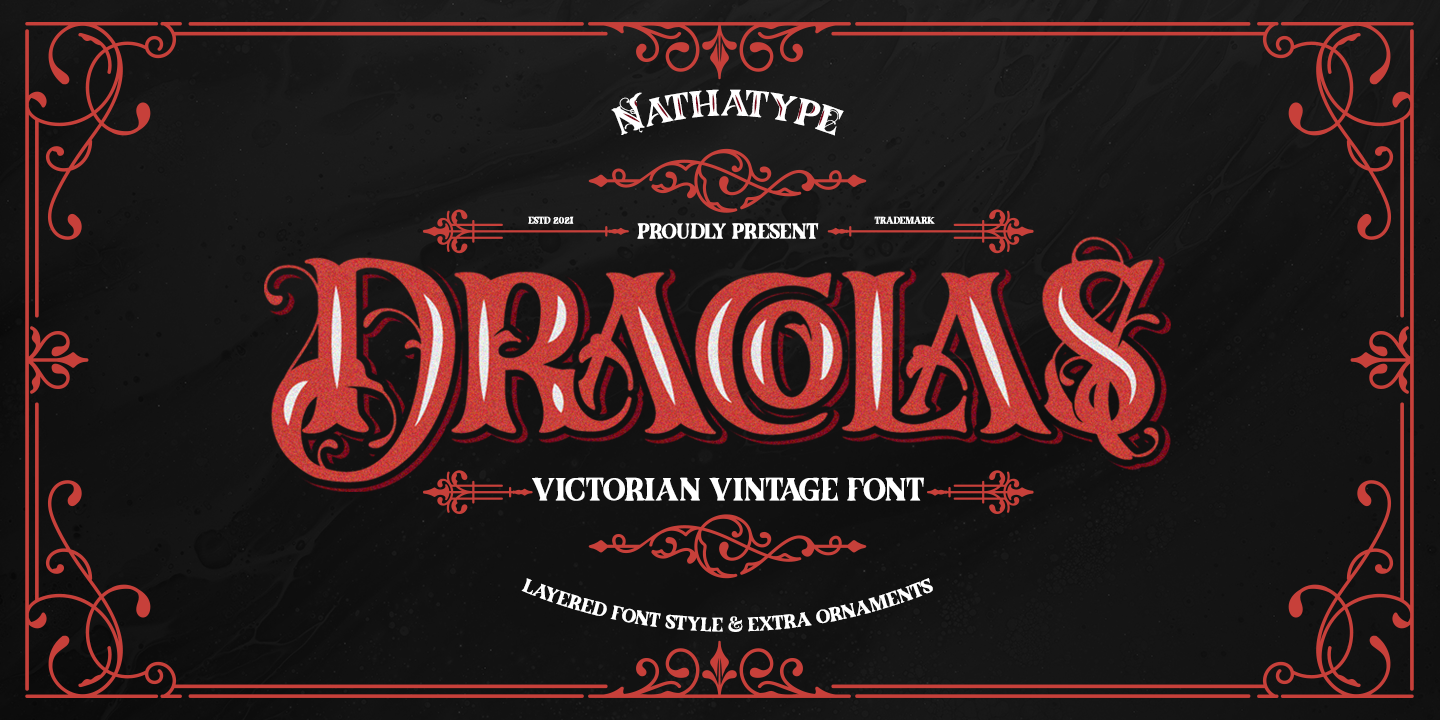
The Dracolas Font excels in various design applications including gothic horror branding, vampire-themed entertainment marketing, dark fantasy book covers, mysterious gothic merchandise, atmospheric horror movie posters, supernatural gaming interfaces, dramatic theatrical promotions, medieval castle communications, occult-inspired designs, and darkly elegant cultural projects that demand vampiric sophistication and gothic magnificence.
What makes the Dracolas Font exciting is its masterful evocation of vampiric elegance and gothic drama through letterforms that capture the essence of ancient nobility and supernatural mystique. This typeface embodies the timeless appeal of vampire mythology through carefully crafted characters that suggest the flowing cape of Count Dracula, the sharp elegance of gothic architecture, and the seductive danger that makes vampire stories eternally compelling. The font's vampiric personality makes it perfect for entertainment brands and gothic organizations seeking to communicate dark sophistication, mysterious allure, and the kind of eternal elegance that transcends mortal fashion through typography that literally brings the romance and danger of vampire legends to life.
The Dracolas Font family typically includes dramatic weight variations that enhance the gothic aesthetic, featuring elegant italic styles with vampiric flourishes and darkly sophisticated decorative elements. These family options often include gothic alternates with enhanced supernatural characteristics, medieval ligatures, and vampiric ornaments that provide designers with comprehensive tools for creating authentically dark typography that celebrates gothic elegance while maintaining contemporary design appeal and atmospheric impact.
Gothic entertainment creators and dark fantasy brands consistently select Dracolas Font Free Download for projects requiring typography that communicates supernatural sophistication and vampiric elegance. This typeface delivers exceptional performance in horror marketing, gothic branding, and dark entertainment communications where establishing atmospheric mood and creating compelling supernatural appeal is essential for audience immersion. The font's vampiric character makes it particularly effective for Halloween and medieval applications. Download Dracolas Font Free Download today to access this darkly elegant typeface that transforms gothic communications with its vampiric sophistication and supernatural magnificence, creating compelling horror experiences that honor the timeless appeal of vampire mythology while maintaining the gothic elegance that makes dark fantasy eternally captivating.